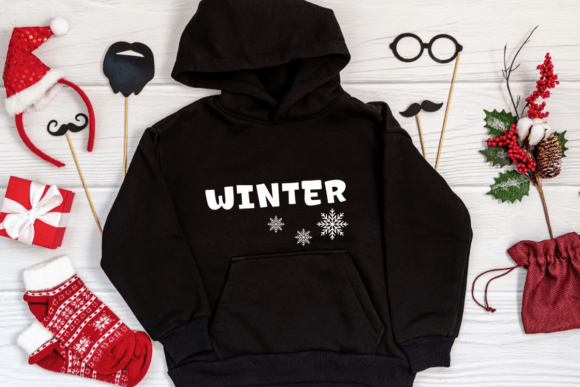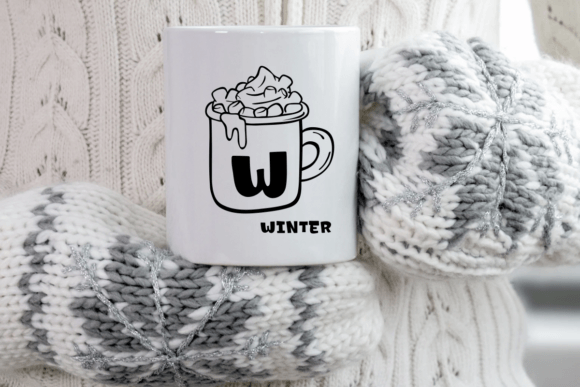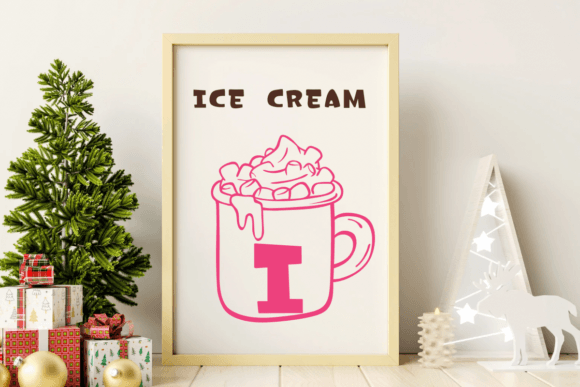
Deck the Halls with a Touch of Holiday Cheer
As the holiday season approaches, designers are on the lookout for unique and festive elements to add a touch of magic to their projects. It’s that time of year when creativity flows, and inspiration strikes – perhaps while sipping hot cocoa from a favorite mug, surrounded by twinkling lights and the sound of jingling bells. Suddenly, an idea sparks, and the vision of a merry Christmas design takes shape.
Enter the Cup Christmas Font, a delightful decorative font that brings the whimsy of Christmas mugs to life. Perfect for adding a cheerful touch to holiday designs, this font is a valuable asset for designers looking to infuse their work with a sense of festive fun. With its colorful and playful letters, the Cup Christmas Font is sure to bring joy to any design project, making it a must-have for holiday designers.
Cup Christmas Font Key Features
- Unique Characteristics: This festive font features a playful, hand-drawn design with intricate details, perfect for creating a whimsical atmosphere during the holiday season.
- Character Set: Cup Christmas Font includes a comprehensive set of characters, including uppercase and lowercase letters, numbers, punctuation marks, and special symbols.
- Font Style: The font has a bold and playful feel, with a mix of thick and thin lines, making it ideal for headings, titles, and short text passages.
Cup Christmas Font Review
I recently had the chance to work with the Cup Christmas Font, and I must say, it’s a mixed bag. Let’s dive into what works well and what doesn’t.
- The font’s playful, whimsical feel is perfect for creating a festive atmosphere during the holiday season.
- The Cup Christmas Font comes in a range of styles, from bold and fun to elegant and sophisticated.
- The font is highly customizable, allowing designers to tailor it to their specific needs.
- The font’s limited character set can be a hindrance when working on longer projects or documents.
- The font may not be suitable for use in formal or professional settings, due to its playful nature.
- The font’s compatibility with certain software or operating systems may be limited.
Overall, I think the Cup Christmas Font is a solid choice for designers looking to add some holiday cheer to their projects. While it has its limitations, the font’s versatility and customizability make it a great option for a wide range of applications.
Tips for Getting the Most Out of the Cup Christmas Font
To get the most out of the Cup Christmas Font, try using it in conjunction with festive colors and graphics, such as holly, snowflakes, or Christmas trees.
Also, experiment with different font sizes and styles to create a visually appealing design.
The Cup Christmas Font is perfect for creating festive holiday designs, such as:
- Christmas cards and invitations
- Holiday menus and gift tags
- Seasonal social media posts and graphics